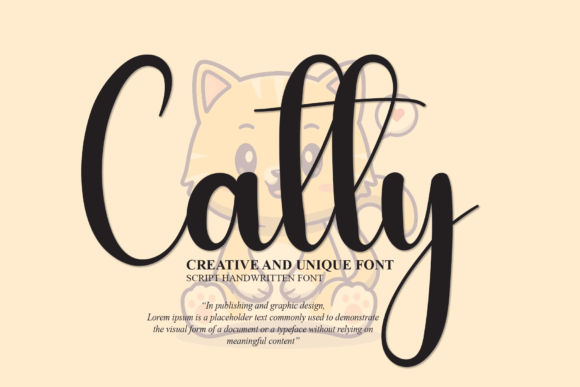
The Perfect Purr-fect Font for Your Next Design Project
Have you ever found yourself sitting at your desk, surrounded by scraps of paper and half-empty cups of coffee, staring at a blank page trying to come up with the perfect design idea? It’s a feeling we’ve all been there, and it’s often the spark that ignites our creativity. For me, it was a wedding invitation that sparked the idea to use Catty Font, a sweet and friendly handwritten font that adds a fun touch to any design.
Catty Font is the perfect solution for designers looking to add a fresh and neat touch to their designs. Ideal for writing wedding invitations, cards, or any other design that needs a playful twist, this font is a valuable addition to any designer’s toolkit. Whether you’re a seasoned pro or just starting out, Catty Font is a great choice for adding a personal and whimsical touch to your designs.
Catty Font Key Features
- Unique Characteristic: Includes a wide range of cat-themed emojis and glyphs, making it perfect for designers and artists who want to add a playful touch to their work.
Catty Font Review
I recently had the chance to work with the Catty Font, and I have to say it’s an interesting addition to any design project. ✨ The font’s playful, cursive script makes it perfect for creating a whimsical or feminine feel in your design.
Here are some of the things that work well with Catty Font:
- Its high level of customization, allowing you to adjust the font’s color, size, and style to suit your needs.
- The numerous language support options available, making it a great choice for projects that require multilingual text.
- The font’s versatility in terms of usage, from headings and titles to body text and quotes.
- ⚠️ The font may not be suitable for projects that require a more formal or professional tone.
- ⚠️ Some users may find the font’s cursive script difficult to read in certain contexts, such as in smaller font sizes or when used in conjunction with other fonts.
Overall, I’d say Catty Font is a great choice for projects that require a touch of personality and whimsy. Just be sure to use it thoughtfully and consider the needs of your audience.
Tips for Getting the Most Out of Catty Font
Use Catty Font for feminine and playful designs, such as invitations, greeting cards, and social media graphics.
Pair Catty Font with other feminine fonts for a unique and eye-catching look.
Experiment with different font sizes and colors to create visual interest and emphasis.
Catty Font is ideal for:
Invitations and event graphics
Greeting cards and gift tags
Social media graphics and posts
Branding and marketing materials
Alternatives to Catty Font
Great Vibes is a beautiful, elegant script font. It’s perfect for creating a sophisticated and luxurious feel in your designs. Use it for branding, invitations, and other high-end projects where you want to convey elegance and refinement.
Compared to Catty Font, Great Vibes has a more refined and polished look, with smoother lines and a more consistent style. While Catty Font has a playful, cursive feel, Great Vibes is more suitable for formal or high-end designs.
Alex Brush is a handwritten font with a touch of sophistication and elegance. It’s great for creating a personal and approachable feel in your designs. Use it for branding, packaging, and other projects where you want to convey a sense of warmth and friendliness.
Compared to Catty Font, Alex Brush has a more subtle and understated look, with softer lines and a more relaxed feel. While Catty Font is playful and cursive, Alex Brush is more suited to projects where you want to create a sense of approachability and connection.
Q: Can I customize Catty Font for my specific project needs?